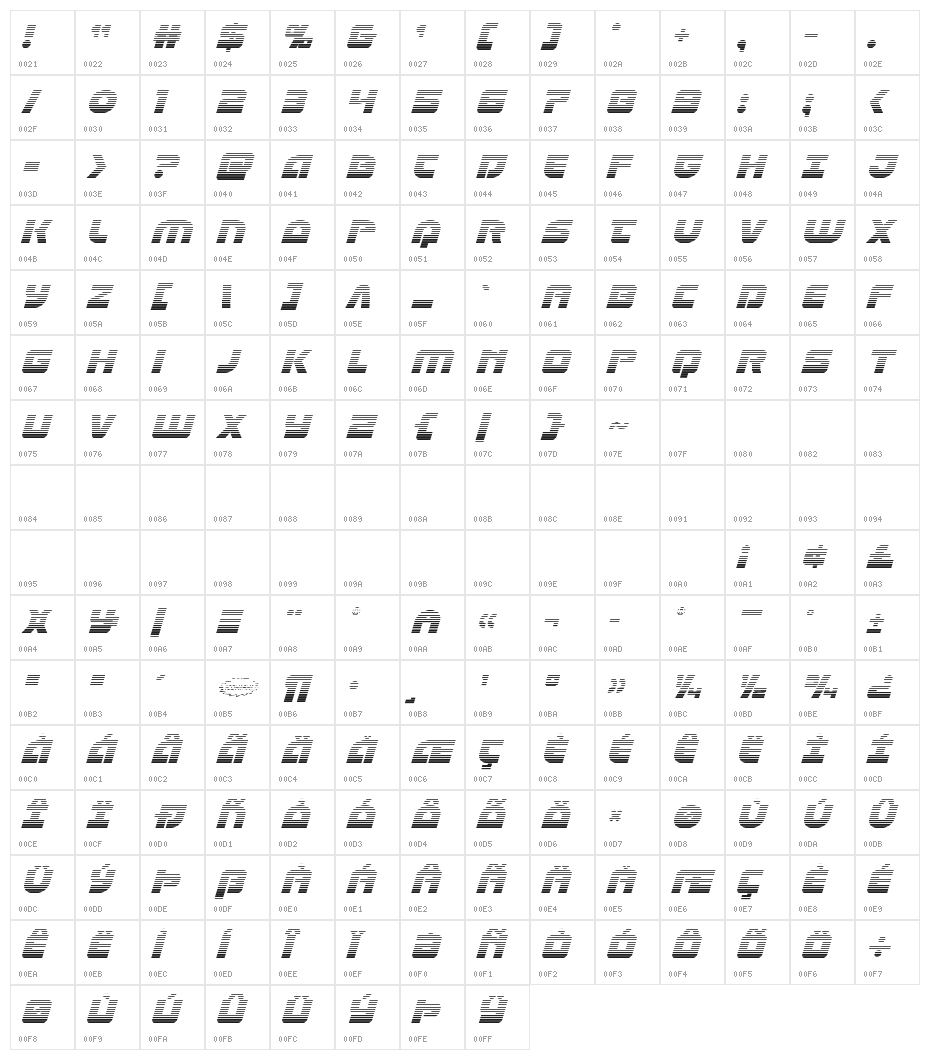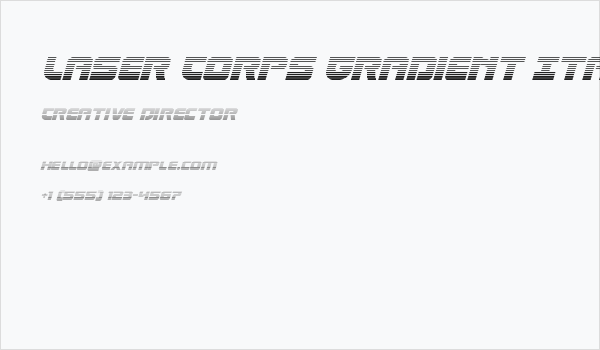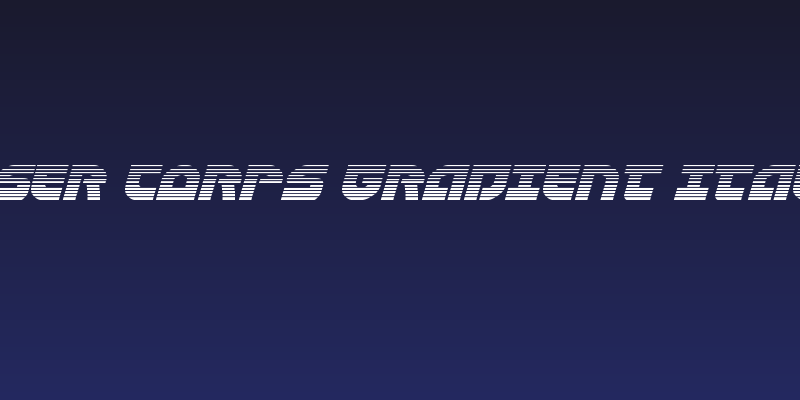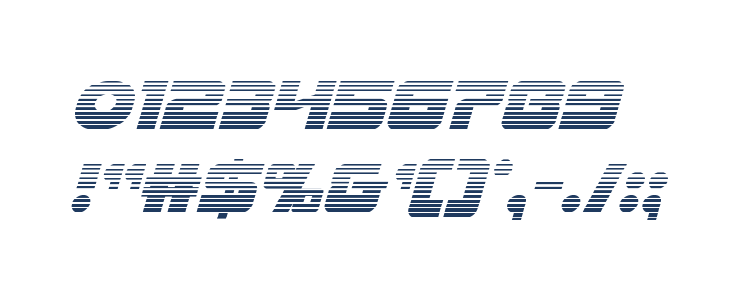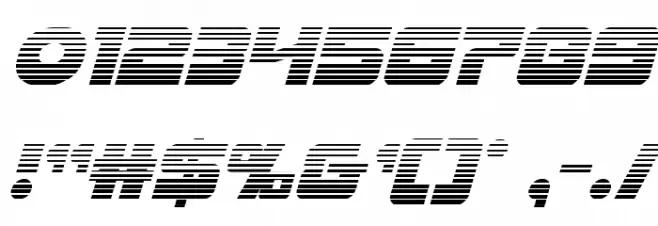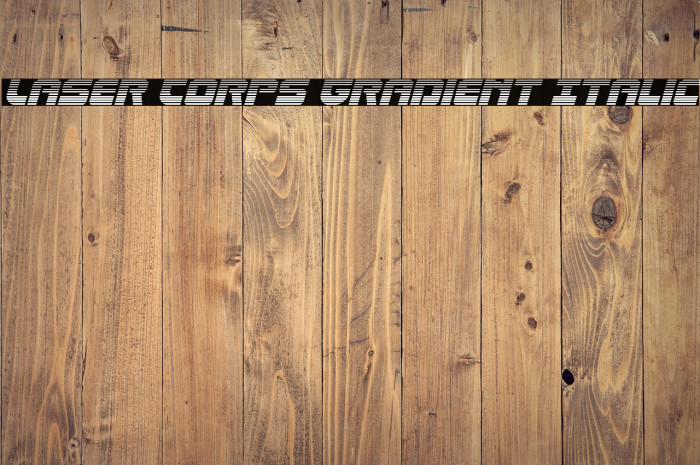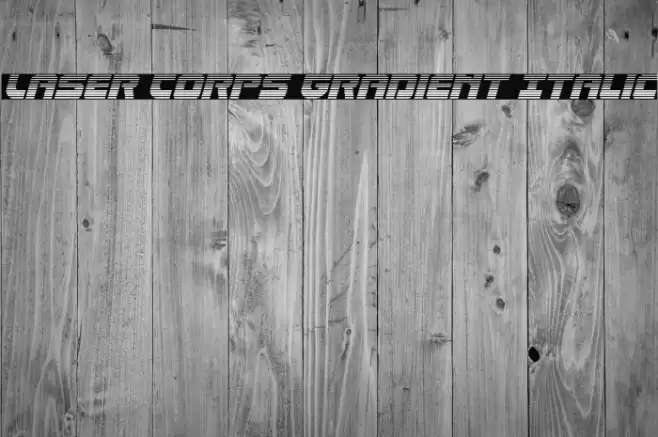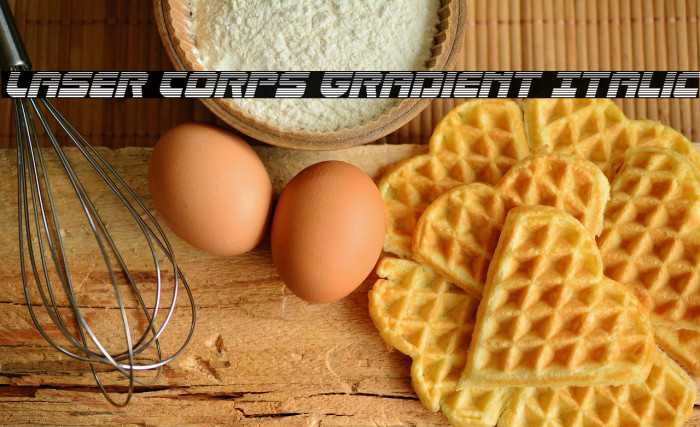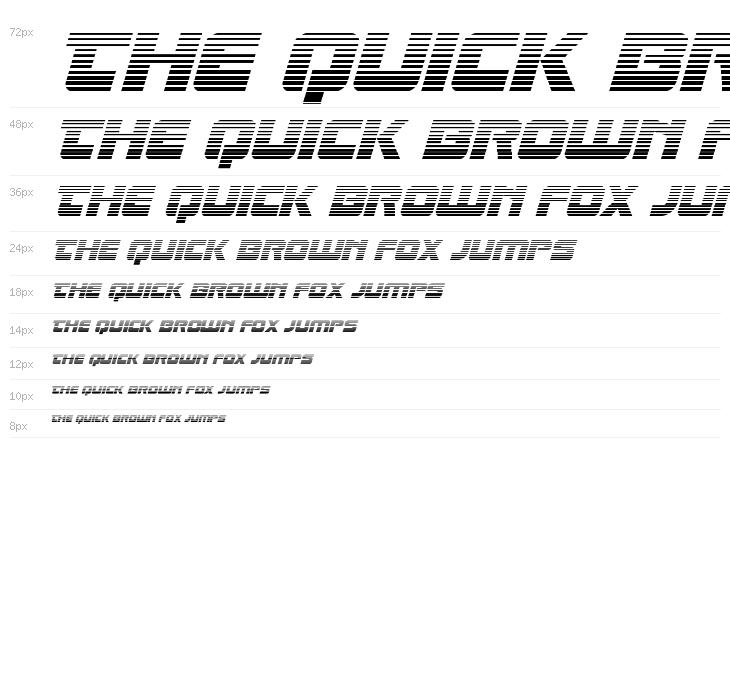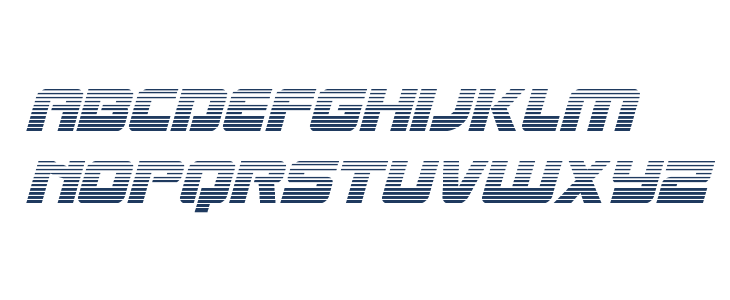
Laser Corps Gradient Italic Font
This font features a futuristic and dynamic design with a distinct gradient effect created by horizontal lines that form each character. The italicized style adds a sense of motion and speed, making it ideal for projects that require a modern and energetic look. The uppercase and lowercase letters, along with numbers and special characters, maintain a consistent slanted appearance, enhancing the overall sleek aesthetic. The unique line pattern within each character gives it a high-tech, digital feel, suitable for contemporary themes.
| Proposed Projects | Ideal for sci-fi themed designs, tech company branding, video game titles, and futuristic posters. |